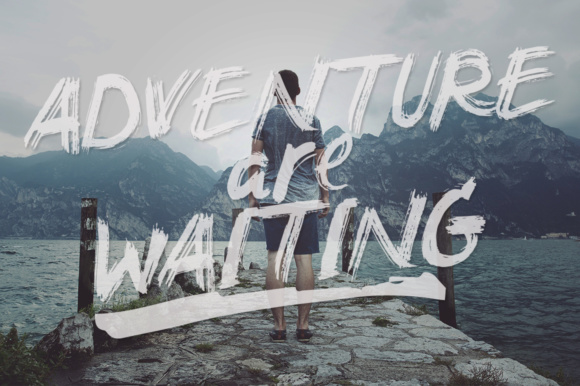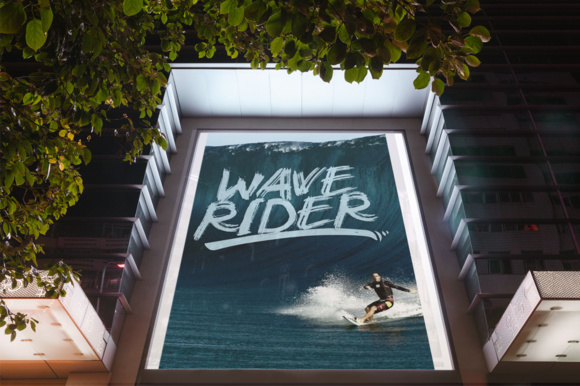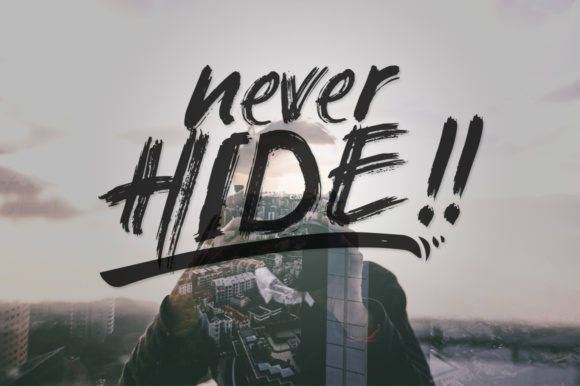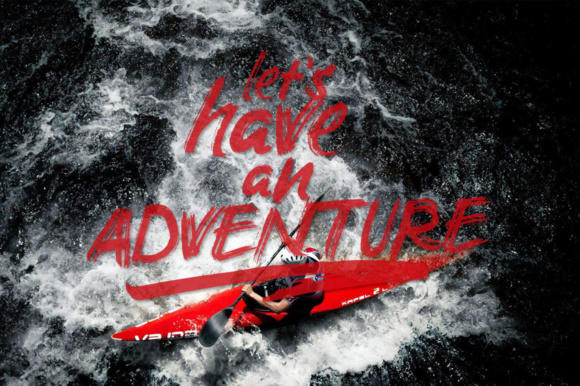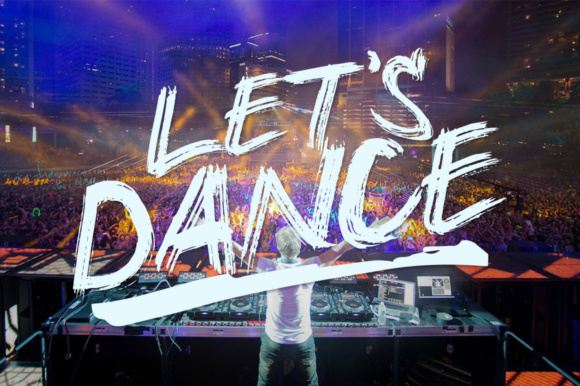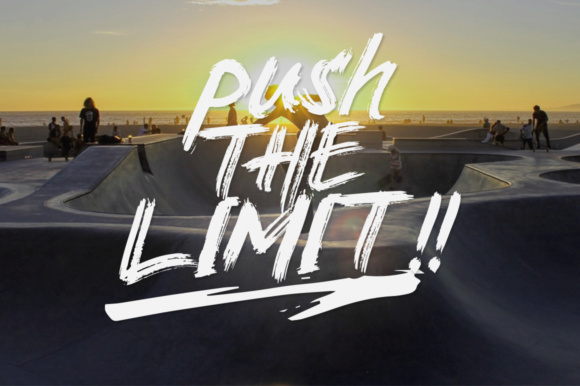
The Crossover Font: Adding a Personal Touch to Your Designs
Are you tired of using the same old fonts in your designs? Do you want to add a personal touch to your typographic work? Look no further than the Crossover font, a brush typeface that gives your designs a realistic hand-drawn look. In this article, we’ll explore the features of the Crossover font, its uses, and how it can elevate your designs.
What is the Crossover Font?
The Crossover font is a brush typeface designed to mimic the look of hand-drawn typography. Its unique, organic feel makes it perfect for designs that require a personal touch. Whether you’re creating logo marks, posters, t-shirt designs, or any other type of visual project, the Crossover font is sure to add a touch of authenticity.
Key Features of the Crossover Font
- Brush Typeface: The Crossover font is a brush typeface, which means it has a unique, hand-painted look that’s perfect for adding a personal touch to your designs.
- Realistic Hand-Drawn Look: The font is designed to mimic the look of hand-drawn typography, giving your designs a realistic, organic feel.
- 23 Swashes: The Crossover font comes with 23 swashes as a bonus, allowing you to add an extra element to your designs and make them more visually appealing.
Uses of the Crossover Font
The Crossover font is versatile and can be used in a variety of design projects, including:
- Logo Marks: The Crossover font is perfect for creating logo marks that require a personal touch. Its unique, hand-drawn look makes it ideal for branding and identity designs.
- Posters: Add a touch of authenticity to your posters with the Crossover font. Its bold, brush-like strokes make it perfect for headlines and titles.
- T-Shirt Designs: The Crossover font is great for t-shirt designs, especially those that require a more personal, hand-drawn look.
- Anything that Requires a Personal Touch: Whether you’re creating business cards, brochures, or social media graphics, the Crossover font is sure to add a touch of personality to your designs.
Benefits of Using the Crossover Font
So, why should you use the Crossover font in your designs? Here are just a few benefits:
- Unique Look: The Crossover font has a unique, hand-drawn look that’s sure to make your designs stand out.
- Authentic Feel: The font’s realistic hand-drawn look gives your designs an authentic feel that’s perfect for brands that want to connect with their audience.
- Versatility: The Crossover font is versatile and can be used in a variety of design projects, from logo marks to posters and t-shirt designs.
Tips for Using the Crossover Font
Here are a few tips for using the Crossover font in your designs:
- Experiment with Swashes: The Crossover font comes with 23 swashes, so don’t be afraid to experiment and find the perfect combination for your design.
- Use it Bold: The Crossover font is perfect for bold, eye-catching headlines and titles.
- Pair it with Other Fonts: The Crossover font pairs well with other fonts, so don’t be afraid to experiment and find the perfect combination for your design.
| Font Name | Cross over Font |
| Author | Hart Foundry |
The Crossover font is a versatile, brush-type font that’s perfect for adding a personal touch to your designs. Its unique, hand-drawn look and realistic feel make it ideal for a variety of design projects, from logo marks to posters and t-shirt designs. With its 23 swashes and bold, brush-like strokes, the Crossover font is sure to elevate your designs and make them stand out. So, why not give it a try and see how it can add a touch of authenticity to your typographic work?